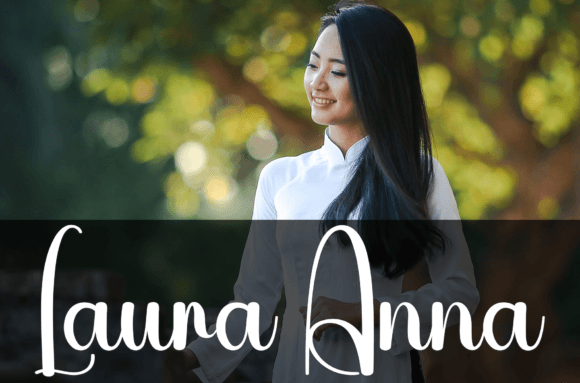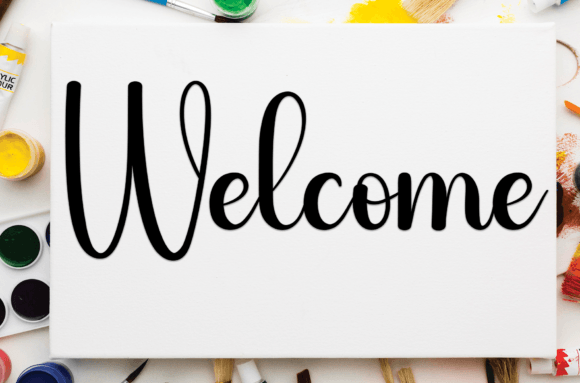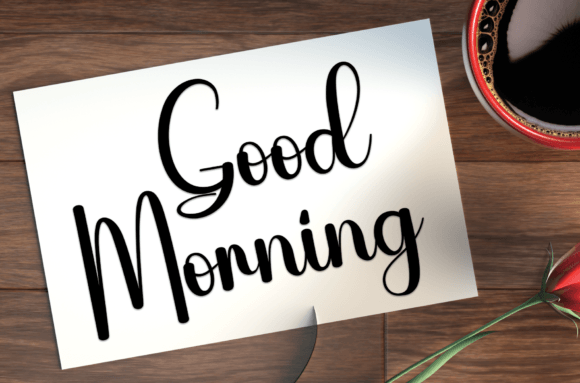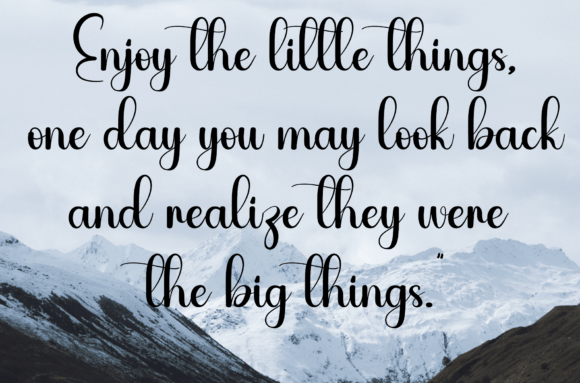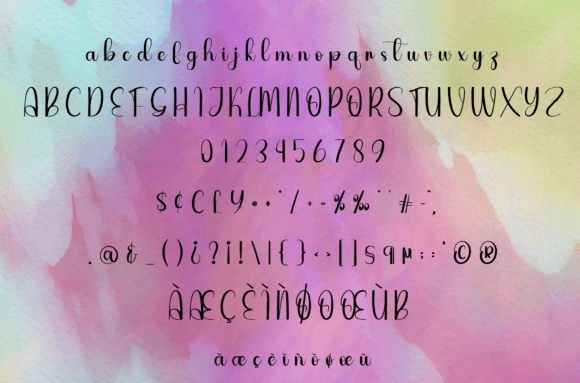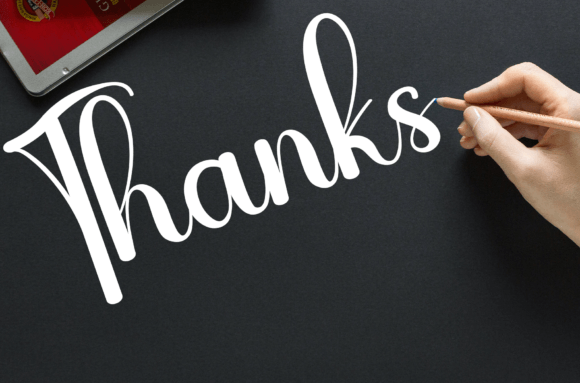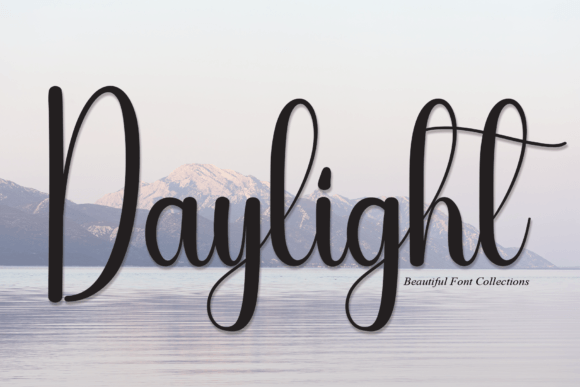
Introducing Daylight Font: The Sweet and Friendly Handwritten Font for Your Creative Projects
Are you looking for a font that can add a touch of warmth and personality to your designs? Look no further than Daylight Font, a sweet and friendly handwritten font that’s perfect for a variety of creative projects. In this article, we’ll take a closer look at Daylight Font, its features, and how you can use it to elevate your designs.
What is Daylight Font?
Daylight Font is a beautiful, handwritten font that’s designed to bring a sense of fun and playfulness to your designs. With its cute and charming letterforms, this font is ideal for writing wedding invitations, cards, or any other design that might need a fun touch. Whether you’re a designer, crafter, or DIY enthusiast, Daylight Font is a great addition to your font collection.
Key Features of Daylight Font
So, what makes Daylight Font so special? Here are some of its key features:
- Sweet and Friendly Design: Daylight Font has a warm and inviting design that’s perfect for creating designs that are both personal and engaging.
- Handwritten Style: This font has a beautiful, handwritten style that’s perfect for adding a touch of personality to your designs.
- Cute and Fun: Daylight Font is designed to be fun and playful, making it perfect for designs that need a lighthearted touch.
- Versatile: This font is versatile and can be used for a variety of design projects, from wedding invitations to cards, and more.
How to Use Daylight Font in Your Designs
Now that we’ve covered the features of Daylight Font, let’s talk about how you can use it in your designs. Here are some ideas to get you started:
- Wedding Invitations: Daylight Font is perfect for writing wedding invitations that are both personal and elegant.
- Cards: Use this font to create beautiful, handmade cards for special occasions like birthdays, holidays, and more.
- DIY Projects: Daylight Font is great for DIY projects like scrapbooking, journaling, and other paper crafts.
- Branding: This font can also be used for branding projects, like creating a logo or label for your business or product.
Tips for Using Daylight Font Effectively
To get the most out of Daylight Font, here are some tips to keep in mind:
- Pair it with Other Fonts: Experiment with pairing Daylight Font with other fonts to create a unique and interesting design.
- Use it for Headings and Titles: This font is perfect for headings and titles, so use it to add a touch of personality to your design.
- Experiment with Colors: Try out different colors with Daylight Font to create a design that’s both visually appealing and engaging.
In conclusion, Daylight Font is a sweet and friendly handwritten font that’s perfect for designers, crafters, and DIY enthusiasts. With its cute and fun design, this font is ideal for adding a touch of personality to your designs. Whether you’re creating wedding invitations, cards, or other DIY projects, Daylight Font is a great choice. So why not give it a try and see how it can elevate your designs?